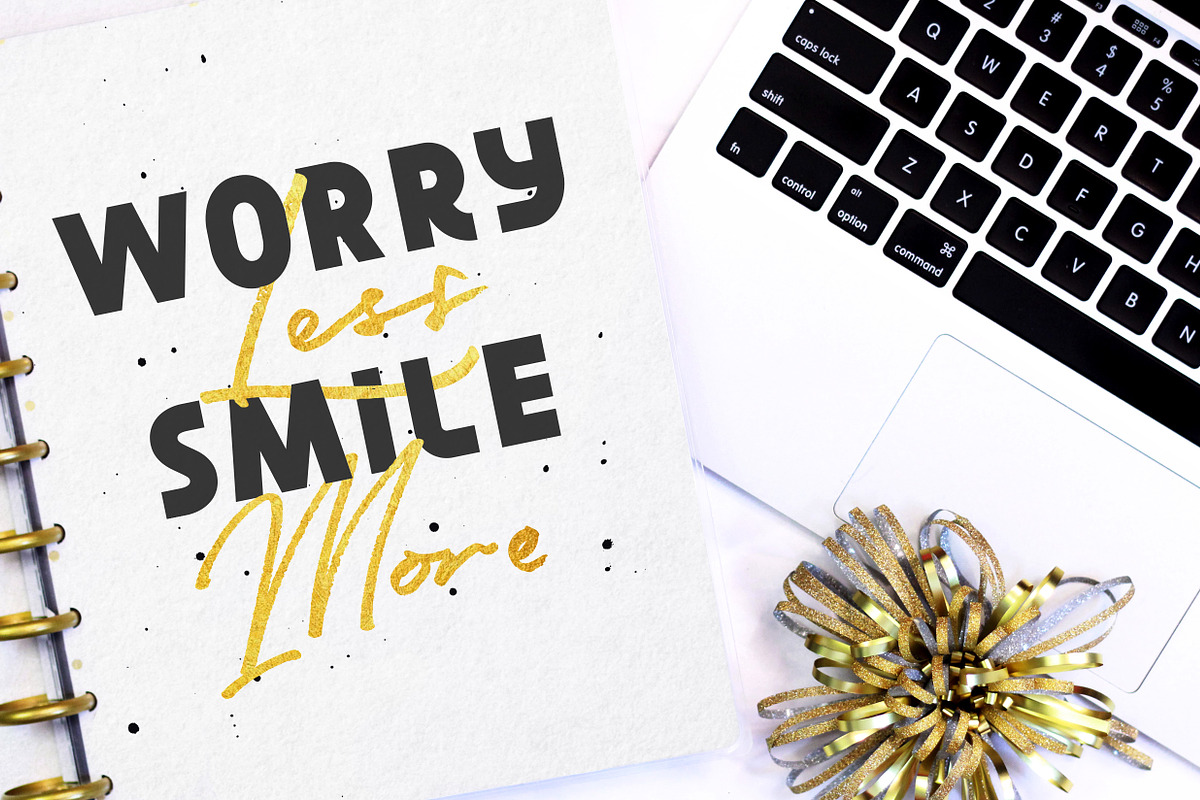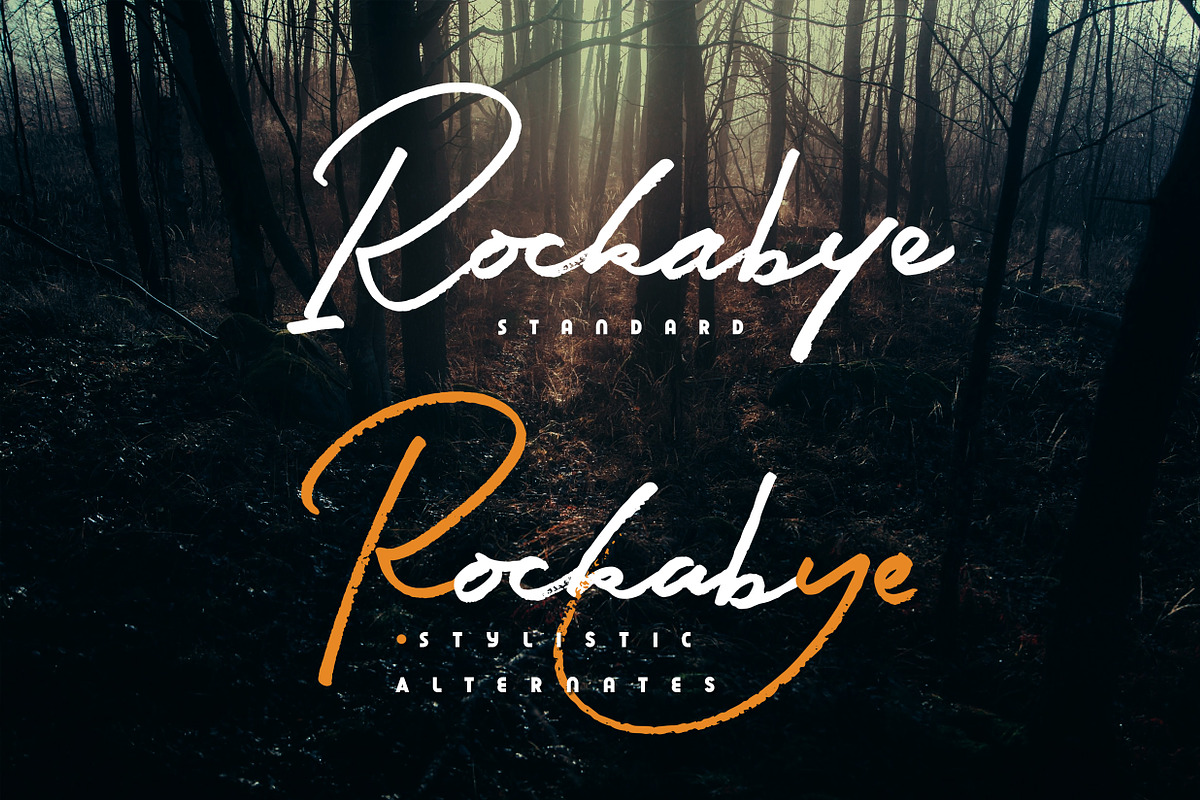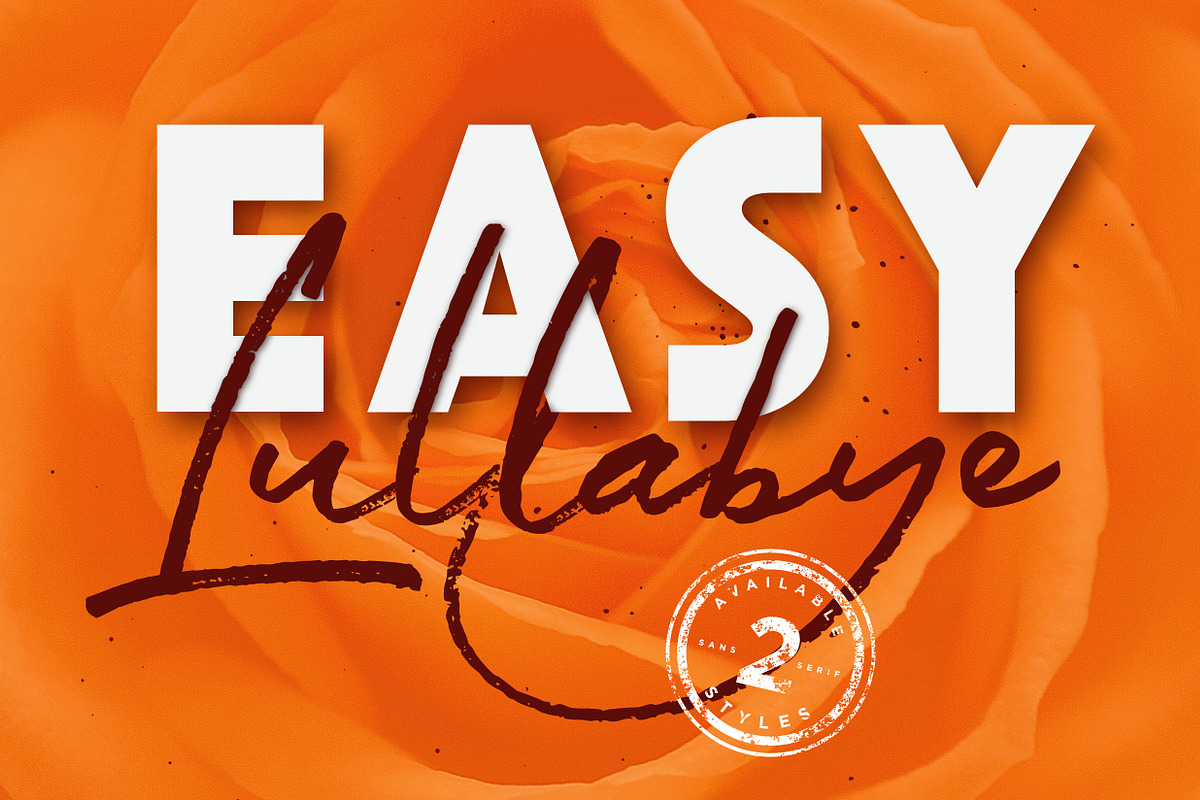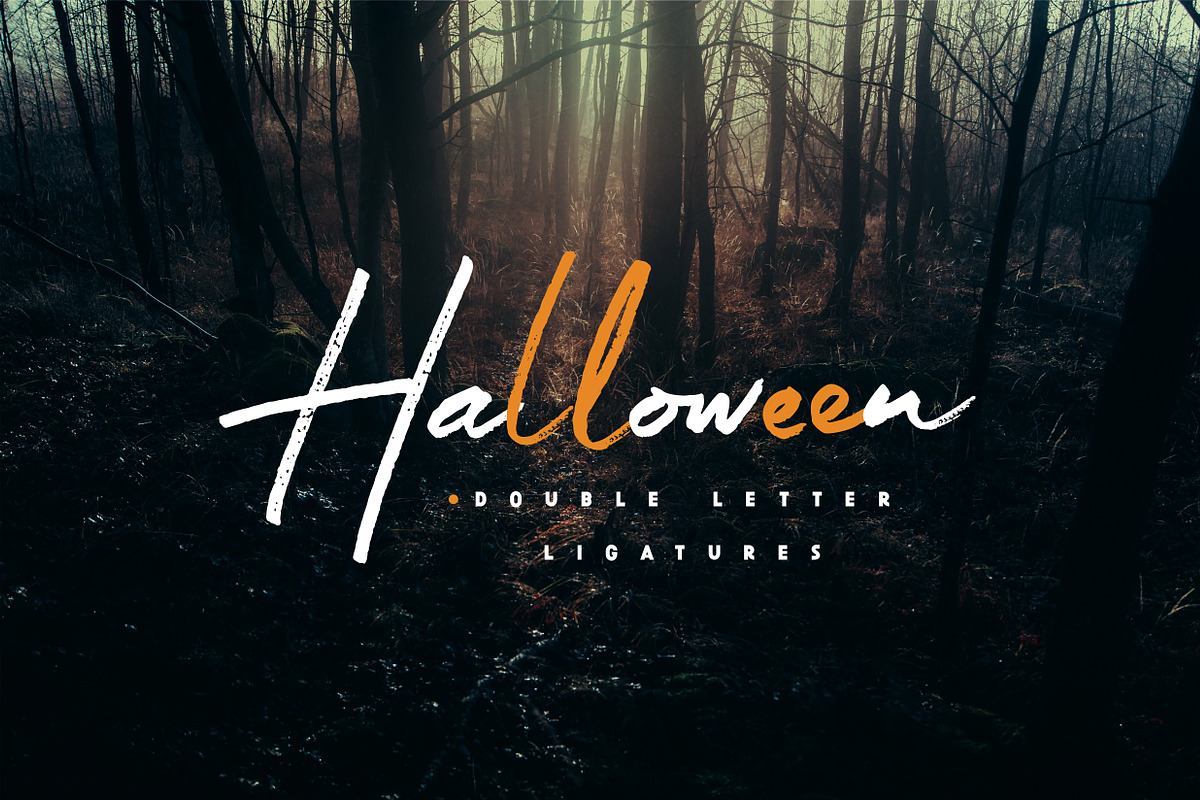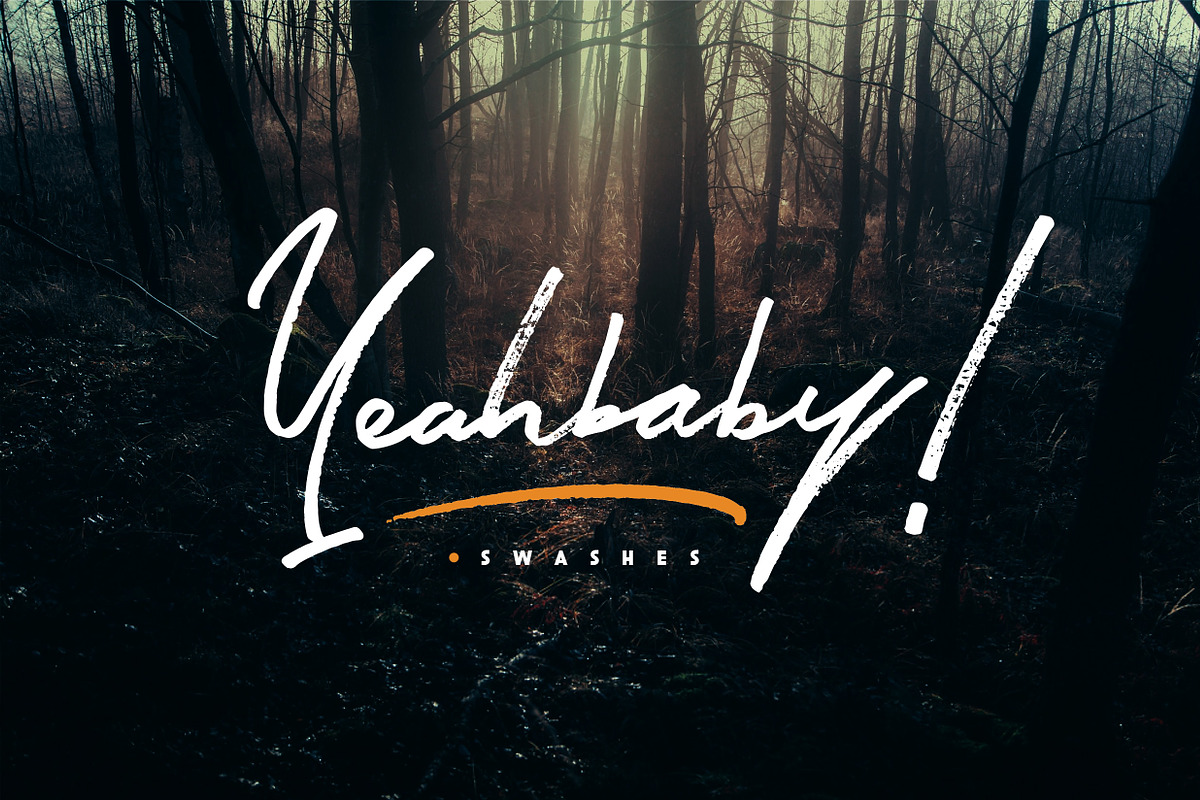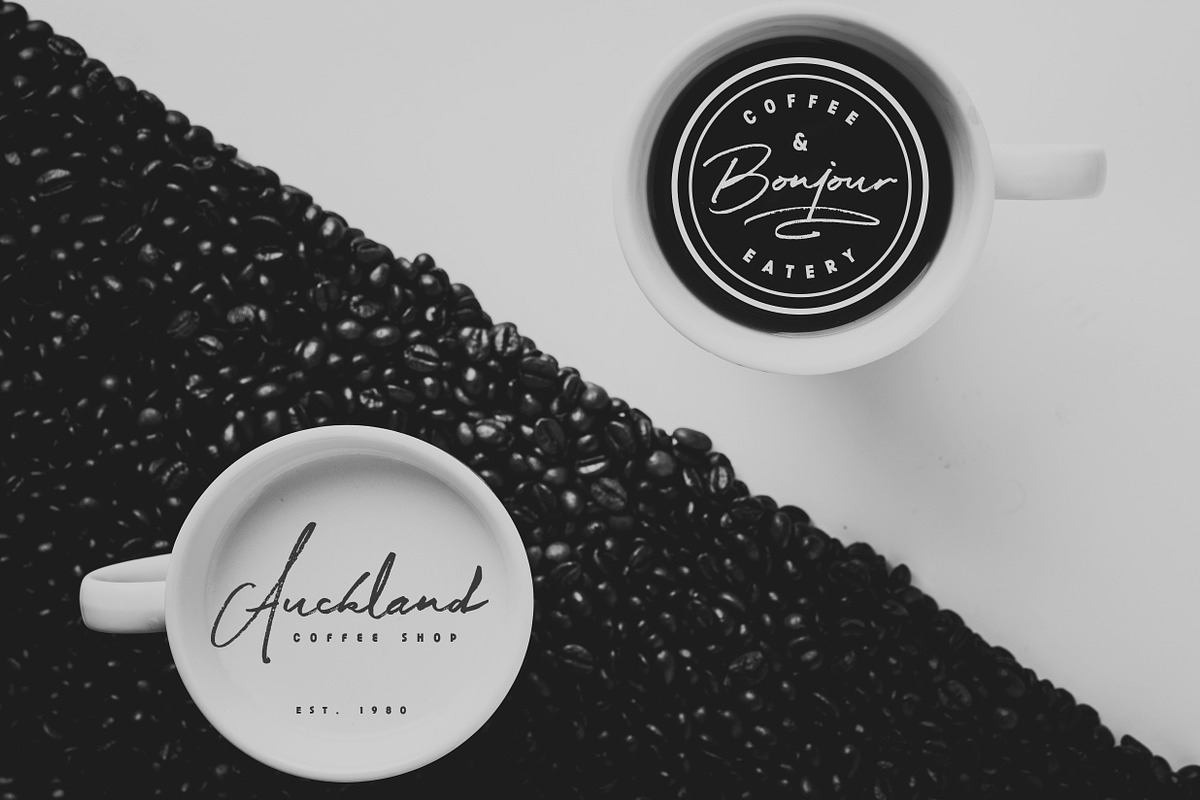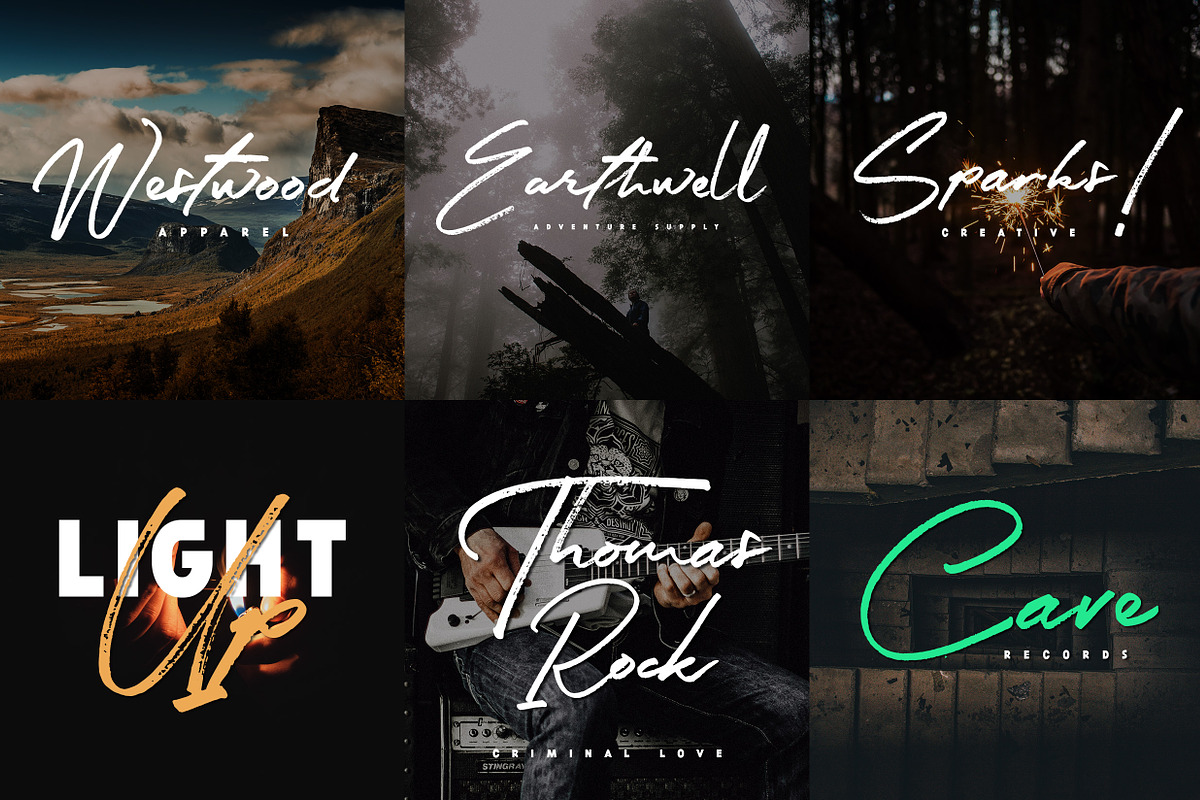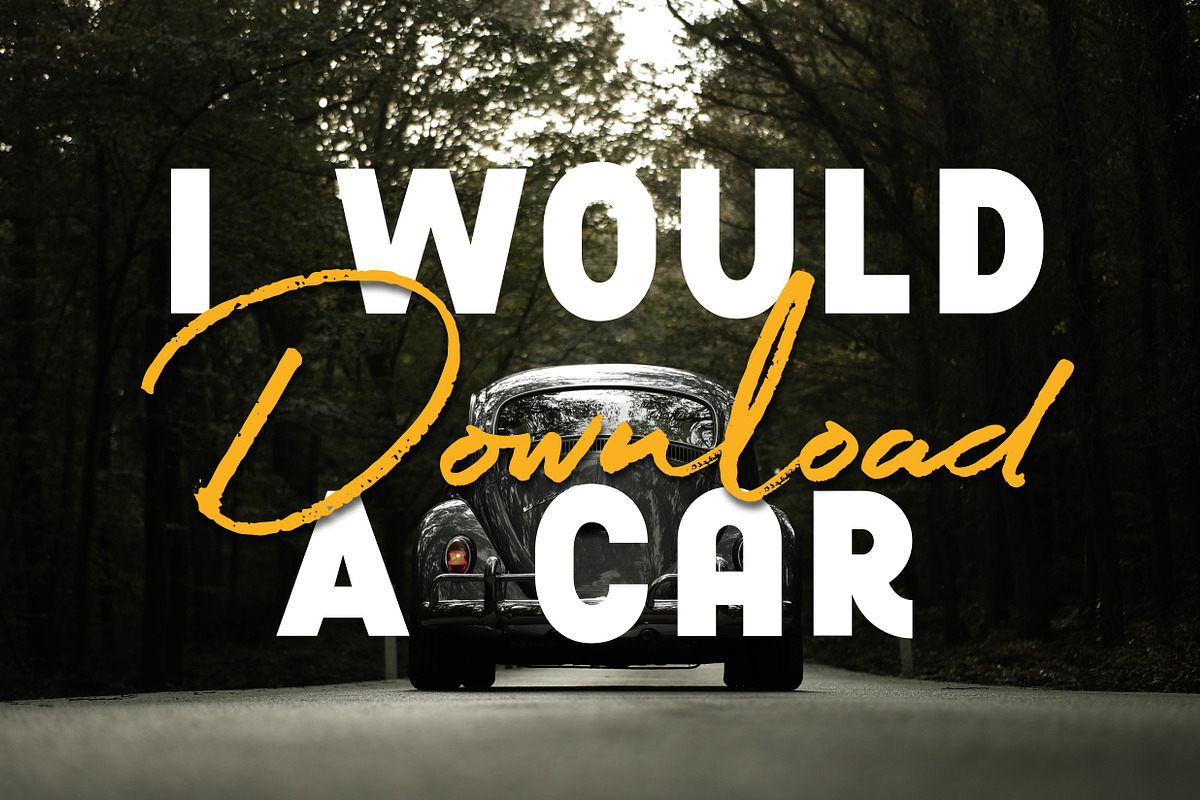
Easy Lullabye logo branding font
Easy Lullabye logo branding font by Konstantine Studio is a font selected for branding, posters, packaging, typography.
- It got a Stylistic Alternates and Ligatures feature to make the handwriting feel more realistic in your design.
Why Easy Lullabye logo branding font is worth a look
Easy Lullabye logo branding font by Konstantine Studio fits naturally into Branding, posters, packaging, typography.